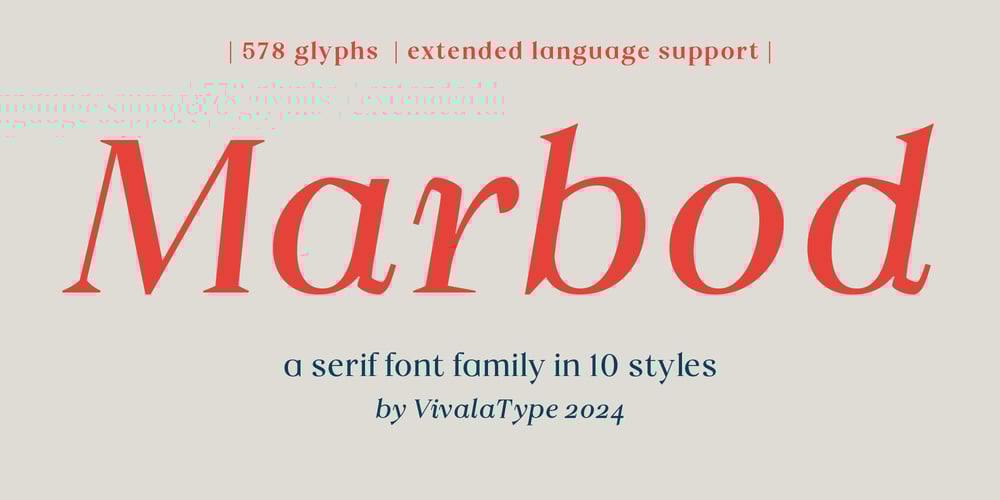
Vivala Marbod
Vivala Marbod font
Vivala Marbod Font Family was designed by Johannes Hoffmann and published by Johannes Hoffmann. Vivala Marbod contains 10 styles and family package options. Vivala-Marbod is a versatile serif font that boasts a wide range of features and styles. With ten styles and 545 glyphs, the Marbod enables a wide range of applications. Whether subtle headings or easy-to-read body text, Marbod offers the necessary versatility. A set of symbols with fractional numerals, scientific numerals, and matching arrows makes them particularly suitable for informative design. Advanced language support makes it ideal for international projects. In addition to the upright font, Marbod contains a well-developed italic. This is great for making posters, brochures, and corporate designs that need to be precise and stylish.